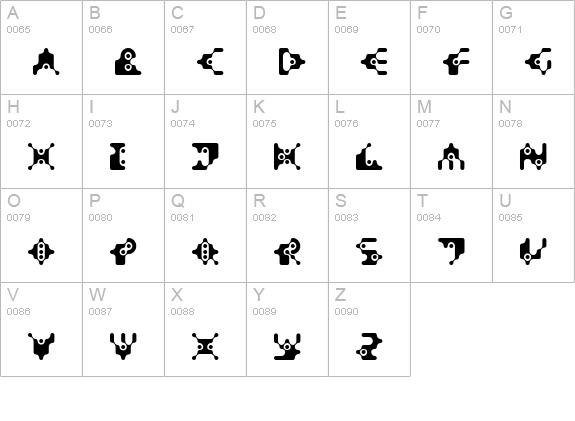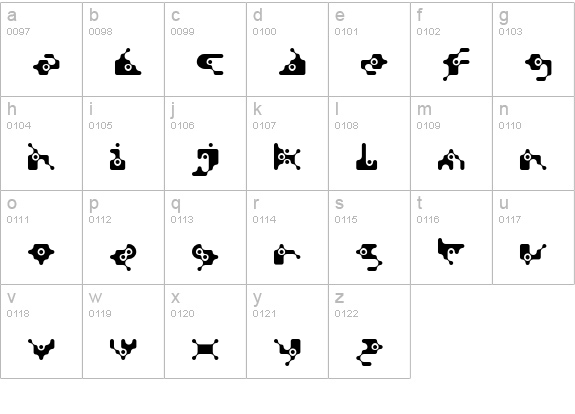
DigitalWaste-Regular Font Details
DigitalWaste-Regular is the standard, neutral variant in the DigitalWaste typeface family \xE2\x80\x94 well suited to general body text, paragraphs, and standard typographic work.
DigitalWaste-Regular is a sleek and modern font that combines a digital aesthetic with a touch of avant-garde flair. Its clean lines and sharp edges give it a futuristic appeal, making it perfect for projects that require a cutting-edge look. This versatile font is ideal for digital designs, branding, and tech-related content. The best part? DigitalWaste-Regular is completely free to download at FontsMarket.com. Now you can elevate your design projects with this eye-catching font without breaking the bank. Get your hands on DigitalWaste-Regular today and make your creations stand out from the crowd with its unique and edgy style.